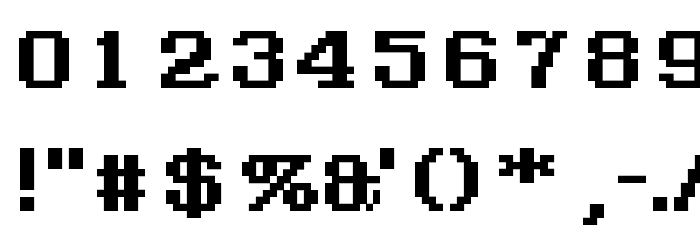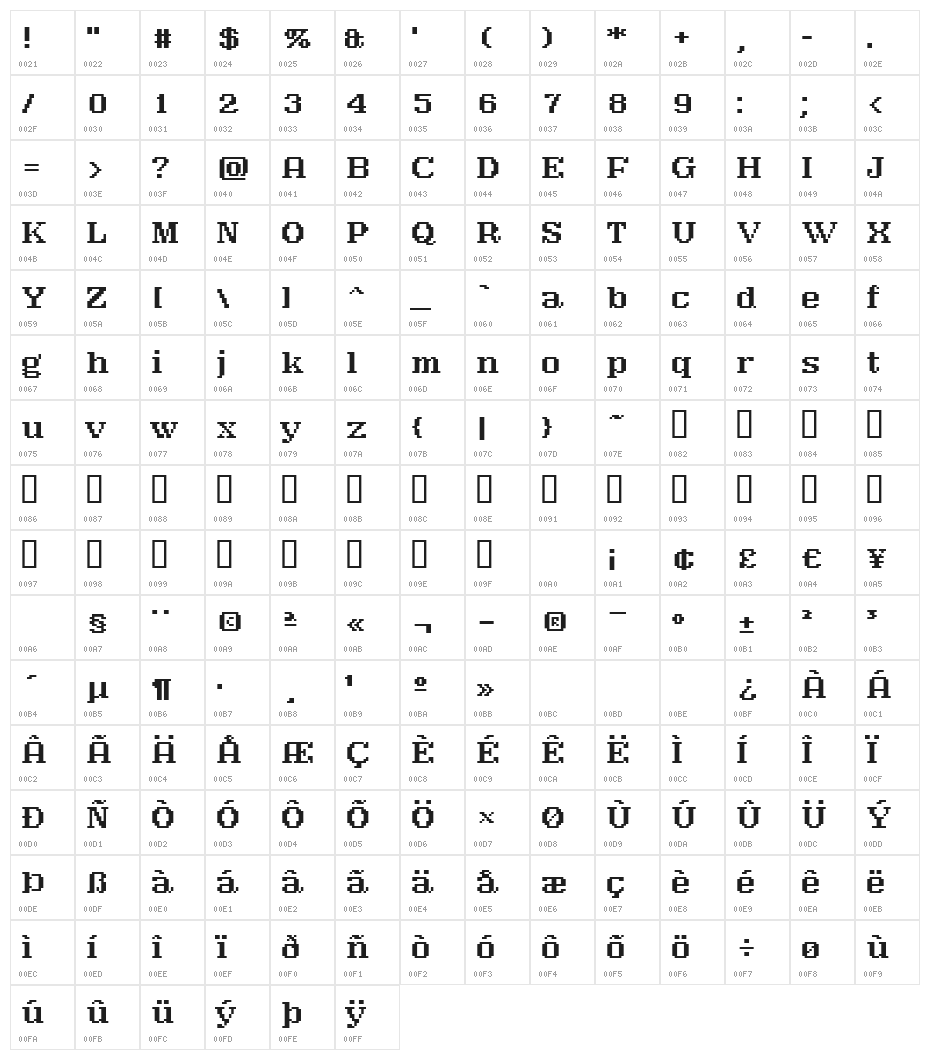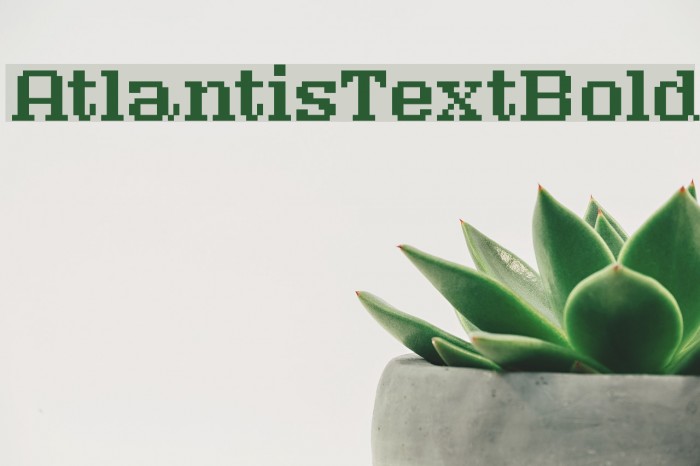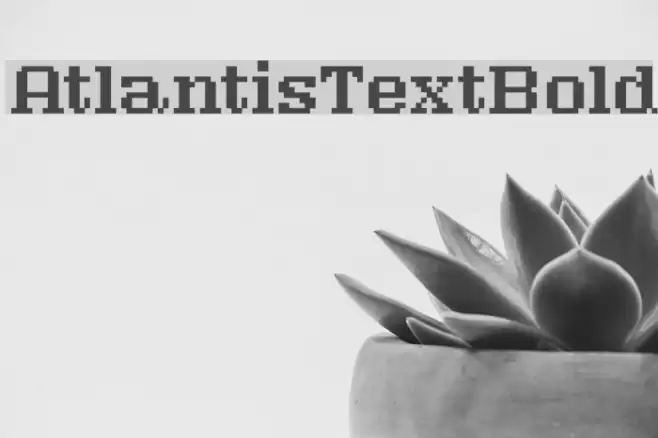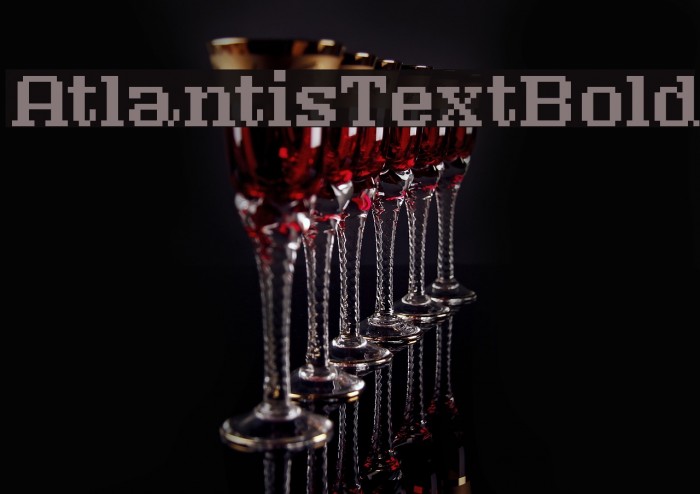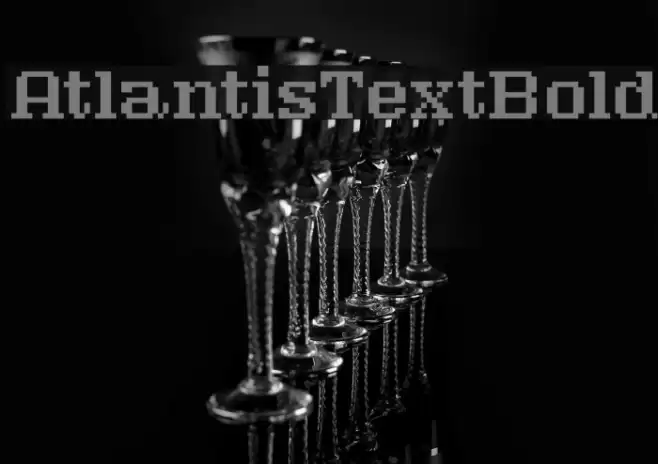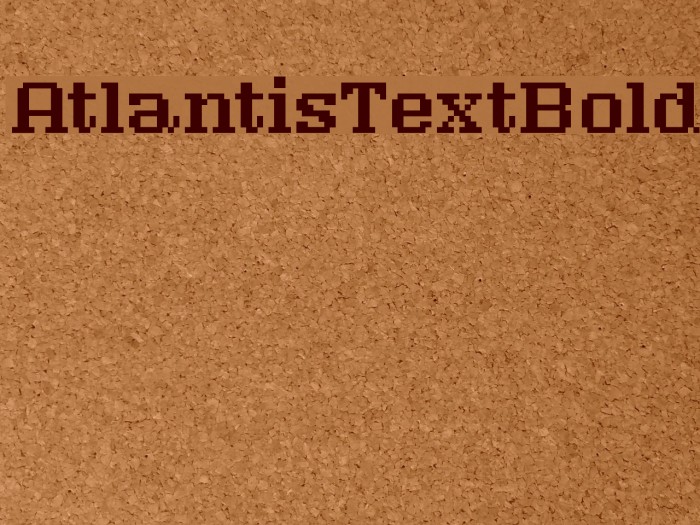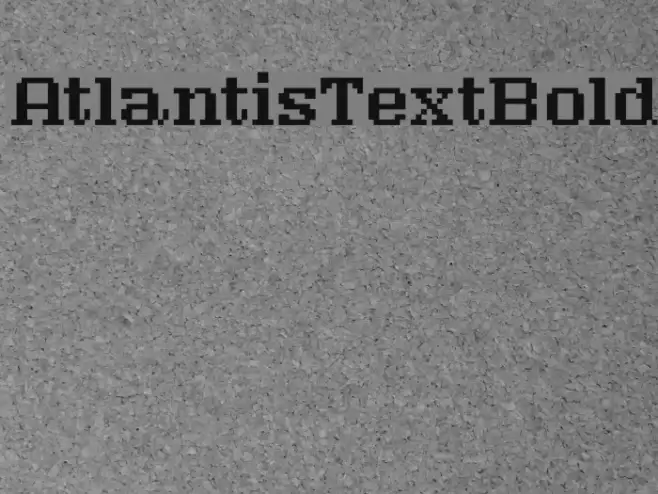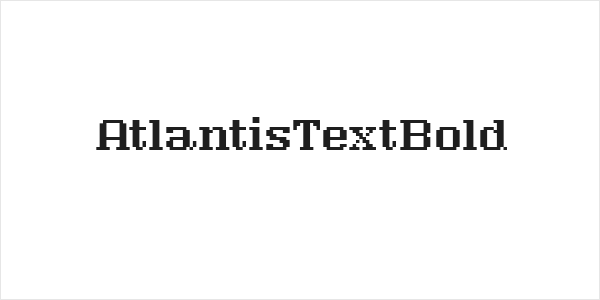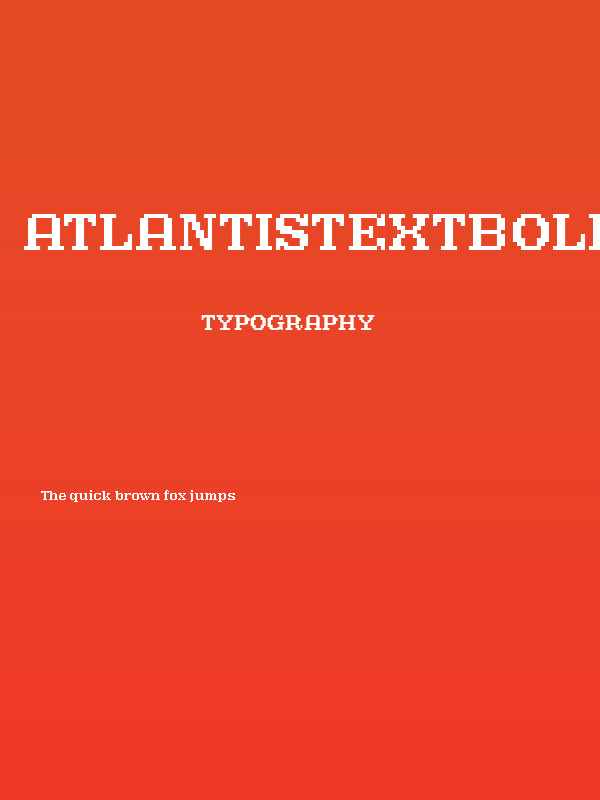
AtlantisTextBold Font
AtlantisTextBold Description
This font features a bold, pixelated style reminiscent of early digital or video game typography. Each character is constructed with a blocky, grid-like appearance, giving it a retro, nostalgic feel. The uppercase and lowercase letters maintain a consistent height and width, contributing to a uniform and structured look. The numerals and special characters follow the same pixelated design, ensuring cohesion across all elements. This font's distinct style is both eye-catching and playful, making it suitable for creative and informal applications.
| Overall Style | Retro |
| Use Case | Headlines, Logos, Digital Art |
| Proposed Projects | Ideal for video game design, retro-themed posters, digital art projects, and playful branding. |